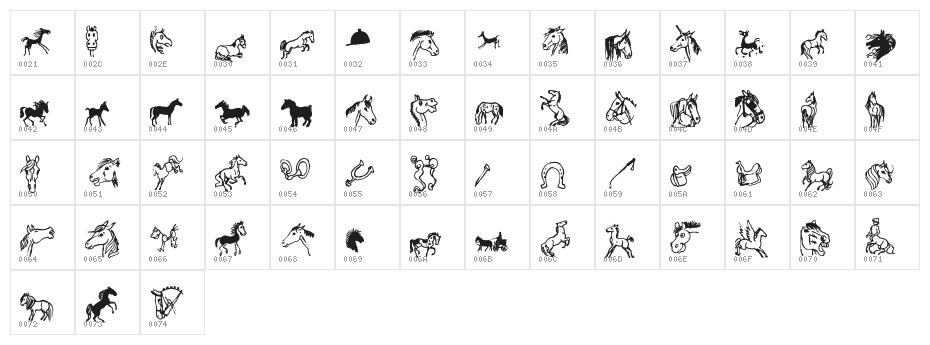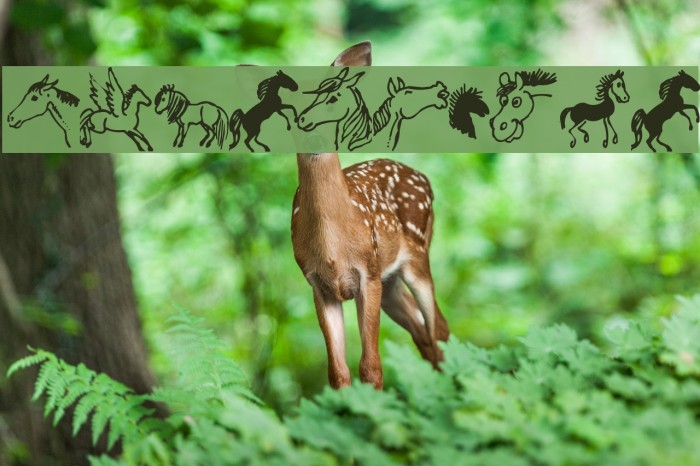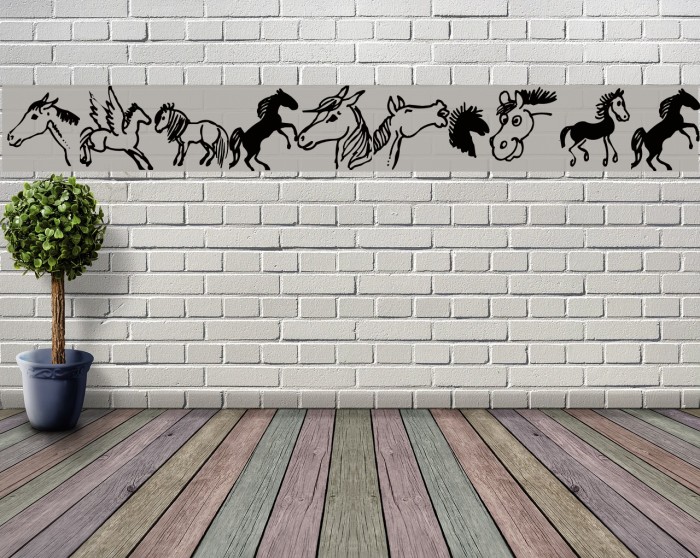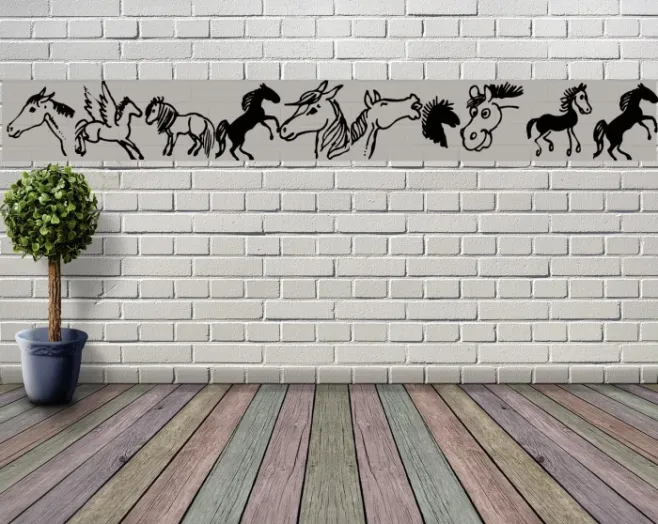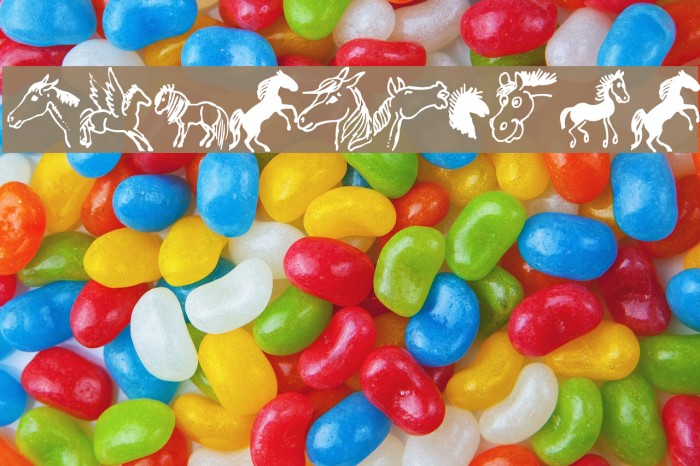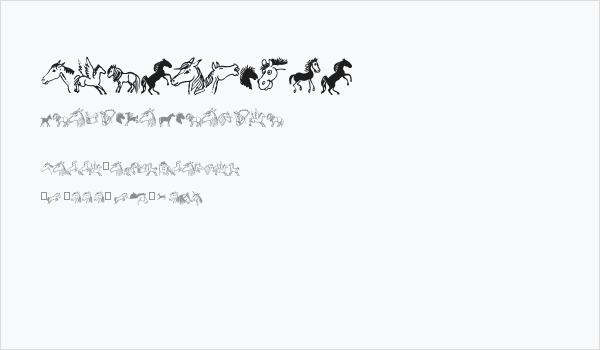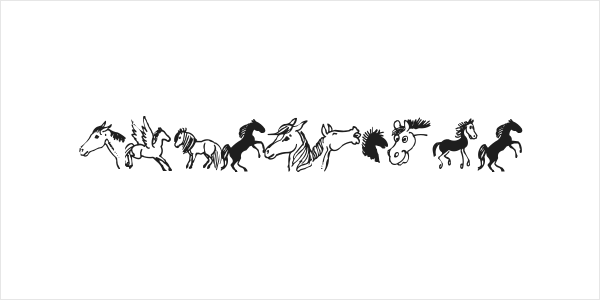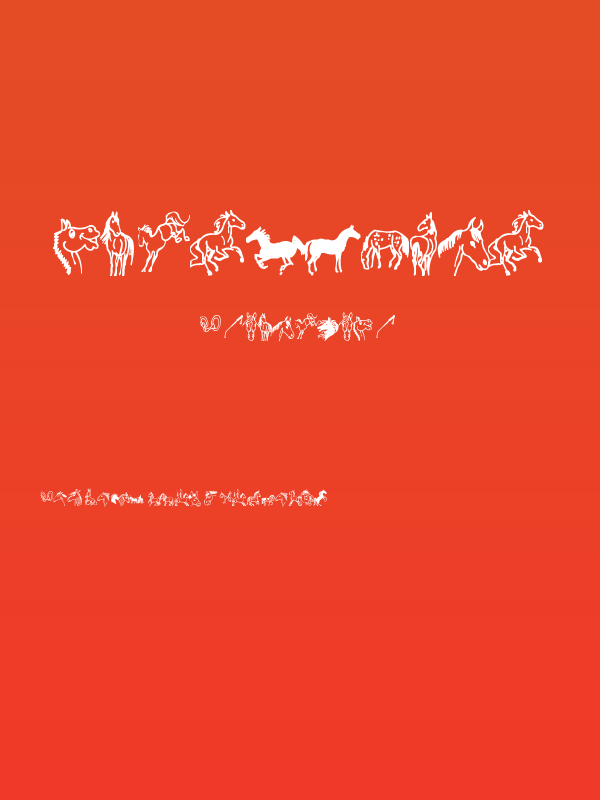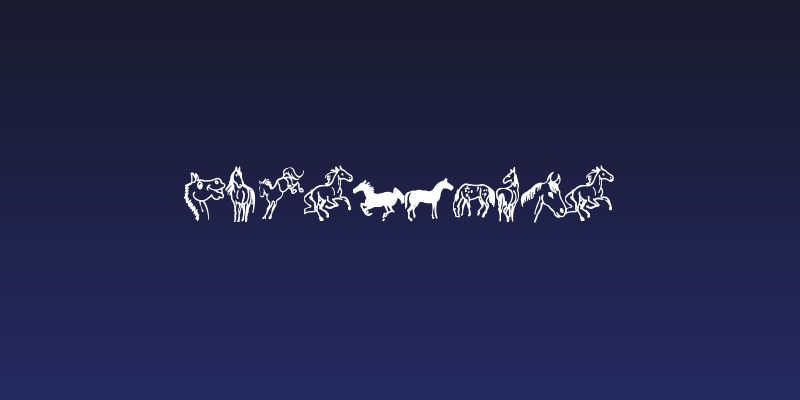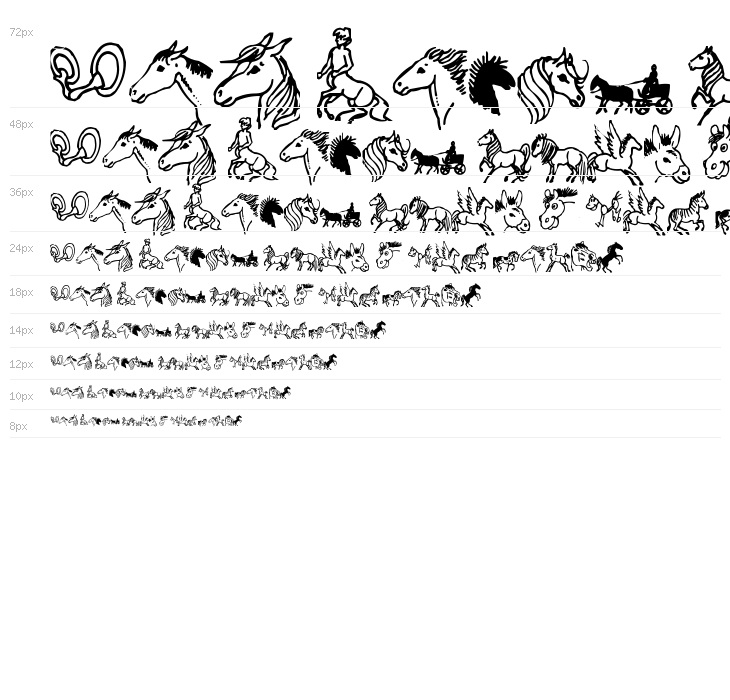
horsedings Font
horsedings Description
This collection features a whimsical and playful set of horse-themed dingbats. Each character is a unique illustration of horses in various poses and styles, ranging from realistic to cartoonish. The designs include horses in motion, detailed horse heads, and various equestrian-related items like saddles and horseshoes. The style is hand-drawn, giving it a rustic and artistic feel. These illustrations are perfect for adding a touch of creativity and fun to any project. The characters are intricately detailed, capturing the essence of equestrian life with a touch of humor and charm.
| Overall Style | Whimsical, Artistic |
| Use Case | Decorative elements, Illustrations |
| Proposed Projects | Ideal for children's books, equestrian-themed invitations, creative posters, and decorative elements in design projects. |